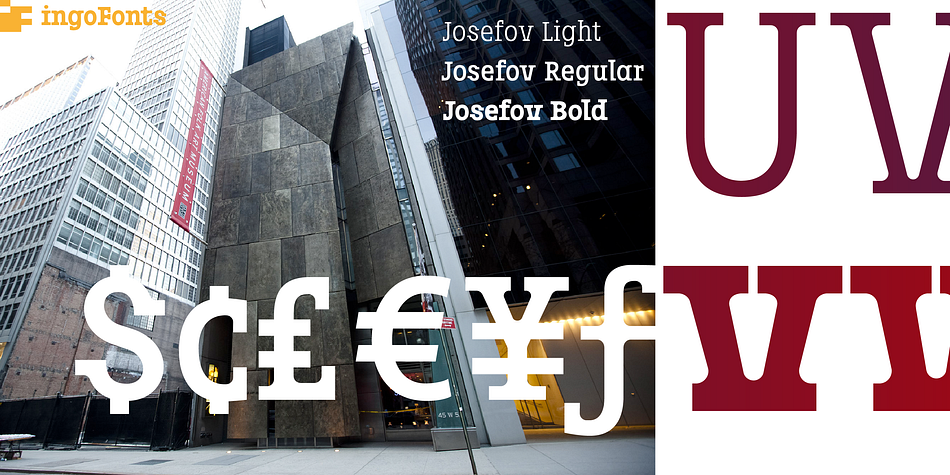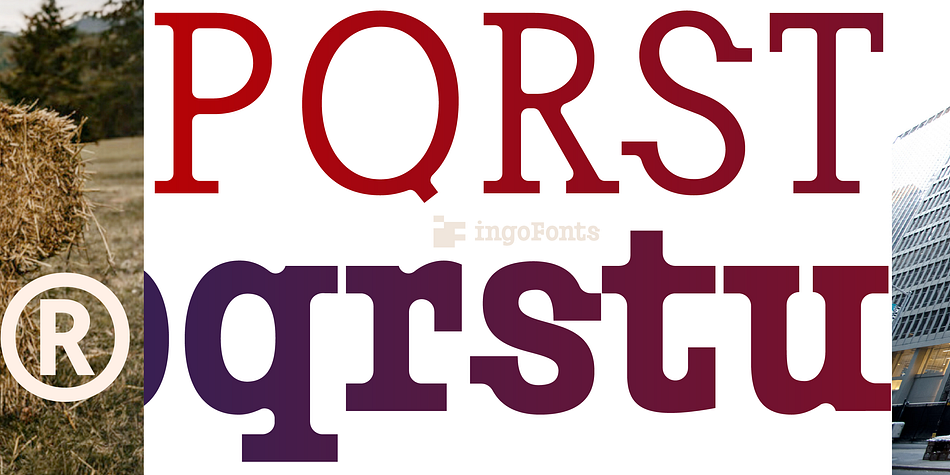
Josefov
Designed by Ingo Zimmerman, Josefov is a slab serif font family. This typeface has three styles and was published by ingoFonts.
A narrow, modern Slab Serif.
JOSEFOV is — as the name implies — directly derived from the sans serif text font ”Josef“. Therefore, of course, it pairs best with “Josef”. The basic thought was to create a font with heavy rounded serifs in the style of ”Clarendon“ but which hardly reminds one of that particular font. The form principle of rounded serifs is applied whenever possible — for example at the points where the individual strokes of the characters join one another.
JOSEFOV seems very technical, very constructed (and truly is). In order to soften up the rigid impression, the serifs are applied at some points contrary to the tradition handed down, as with the upper case A C G K M V W and the lower case a b d h i j k l s t. Historically there is no example of the laterally oriented serifs of capital and small s (S) and C G.
On the other hand, the double-sided serifs on the stems of b d h k l appear at the beginning of modern times in the very first serif types from five hundred years ago. The double-sided serifs of A M V W were also customary in the first decades of printing.
JOSEVOV is particularly suitable for topics such as nature, folklore, culture, music, nutrition.